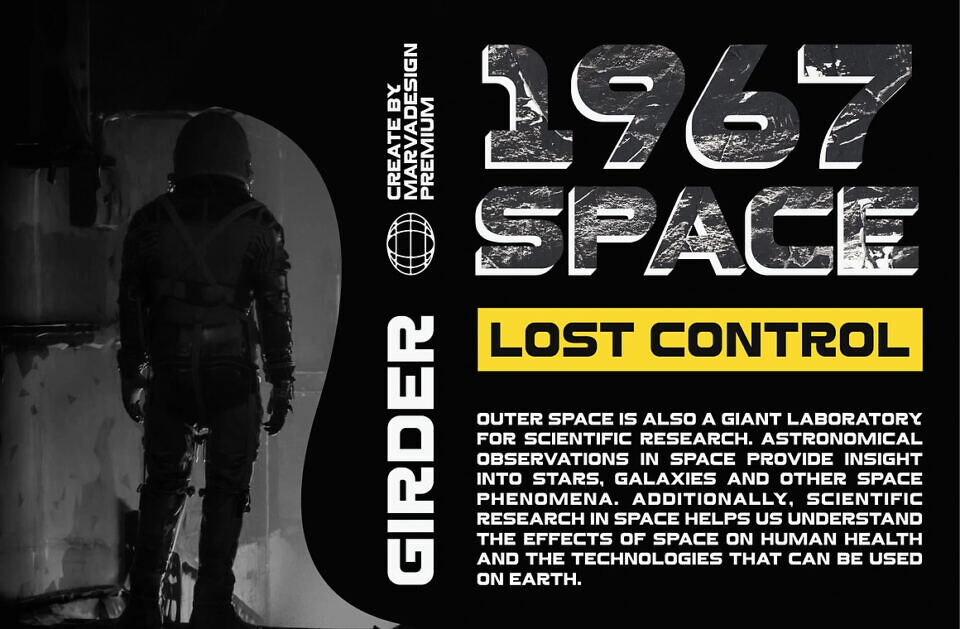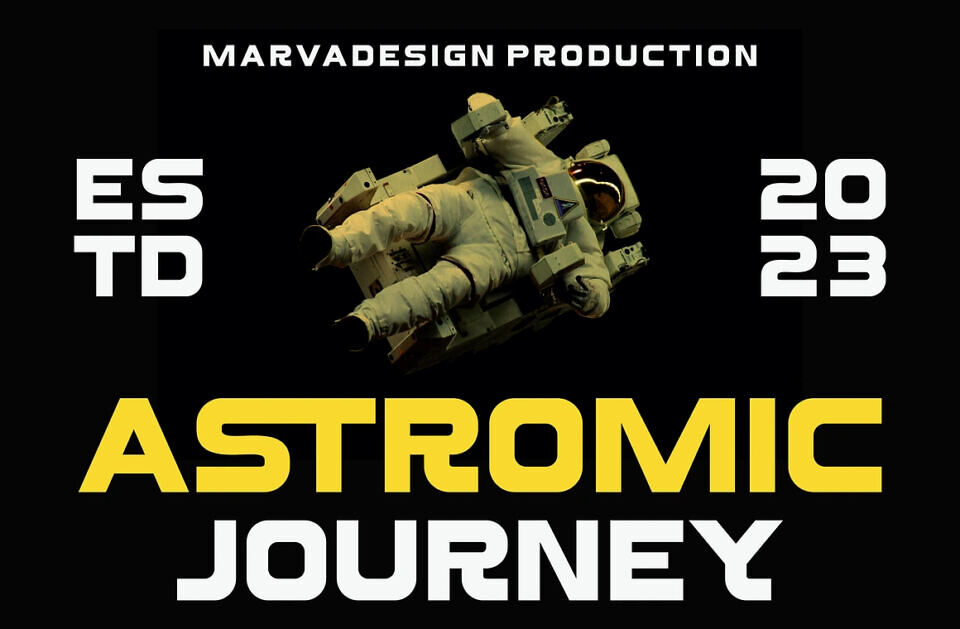
Girder 117 Font
Introducing Girder 117, a Modern Font is a bold and authentic display font. The font is suitable for any branding project like logo, Template Design, Product and many more. outstanding in a wide range of contexts.